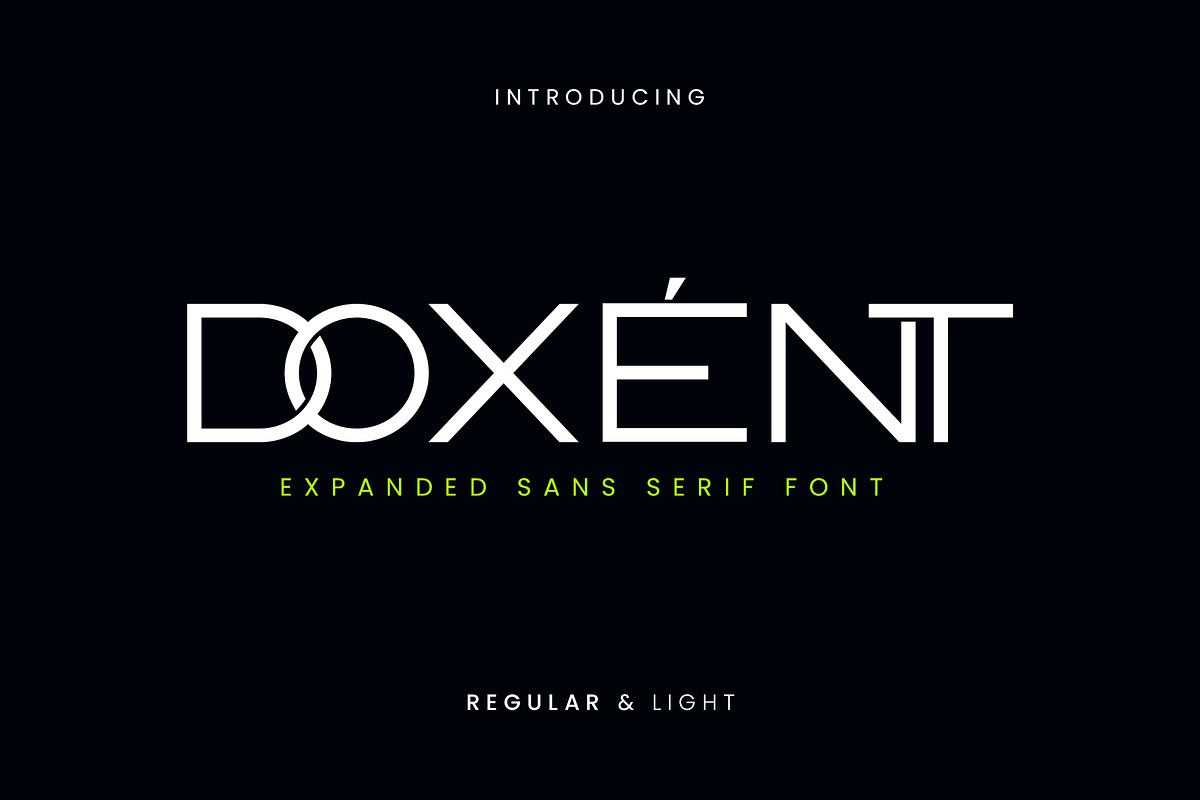
Doxent Expanded Sans Serif Font Free Download is a bold, wide-set typeface built for impact and modern appeal. With its stretched letterforms and clean lines, Doxent is perfect for headlines, sports branding, posters, tech interfaces, and fashion-forward designs. It combines strength with style, making your typography stand out in both print and digital formats.
Using the Doxent Expanded Sans Serif Font Free Download brings confidence and contemporary energy to your designs. Whether you're creating a dynamic logo, a bold web layout, or stylish packaging, Doxent’s expanded structure ensures maximum readability and visual power.